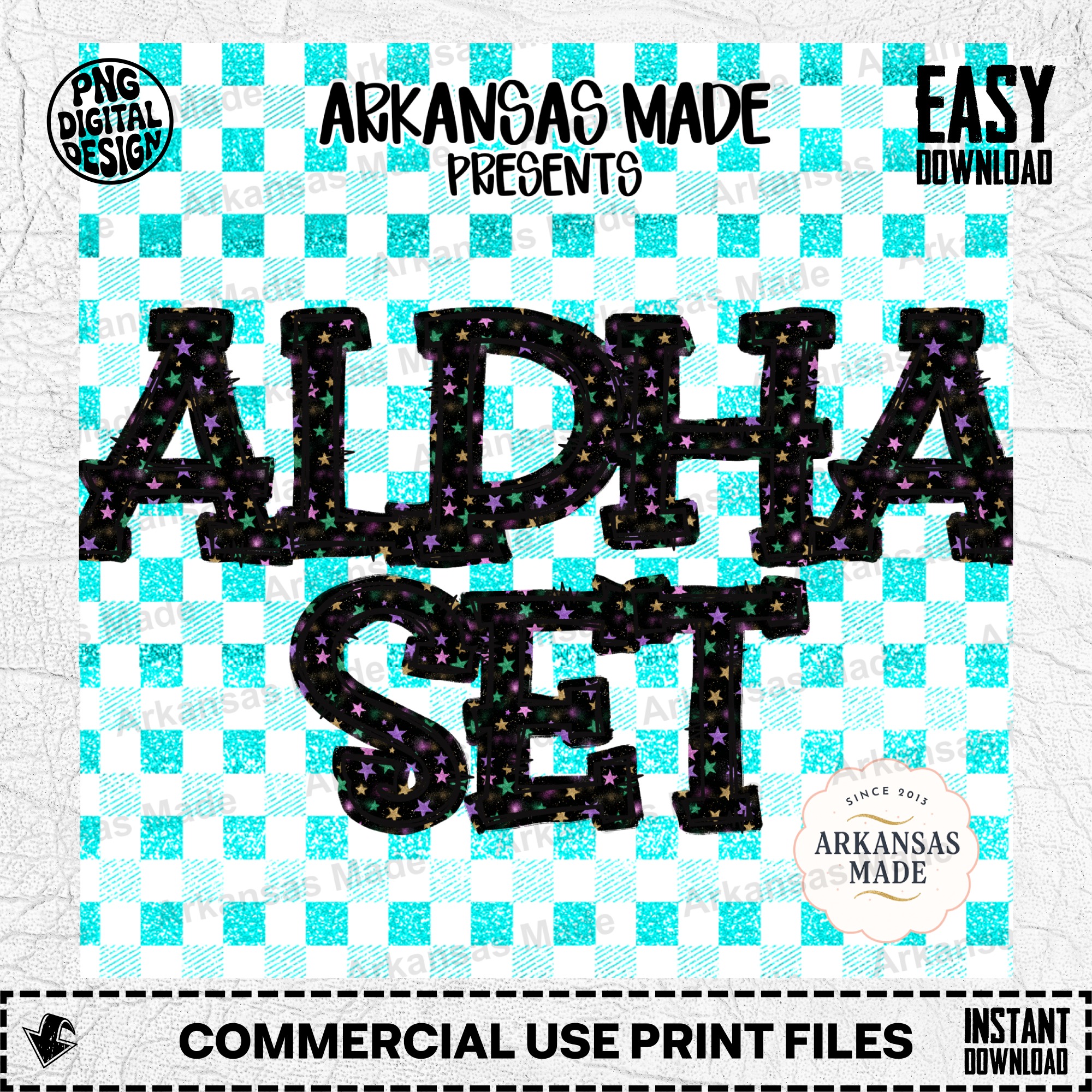
Sparkly Stars Alpha Set PNG, Celestial Galaxy Lettering, Distressed Black Glitter Font, Digital Download Alphabet for Crafters, Cute Kids
Elevate your creative projects with this dazzling Sparkly Stars Alpha Set PNG! Get ready to design with unique distressed black letters adorned with faux glitter stars. This fun digital download alphabet boasts a whimsical celestial theme, perfect for crafters, DIY enthusiasts, and small business owners creating personalized items. Imagine custom t-shirts, party decor, or scrapbook layouts that truly sparkle. A must-have for adding a playful, cosmic touch to any design, making it ideal for kids’ items or unique graphic creations.